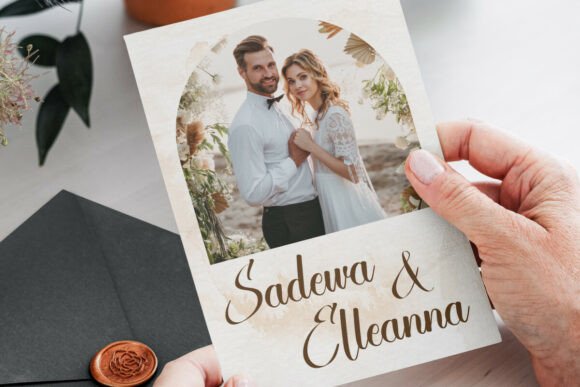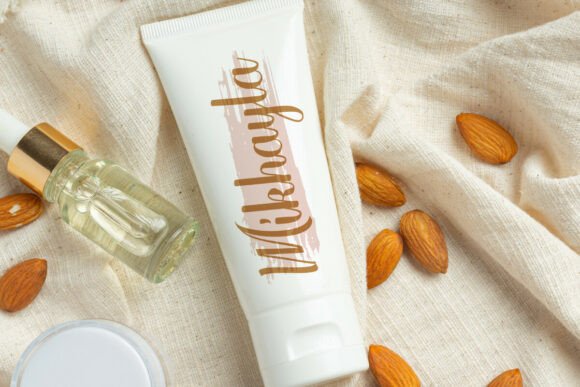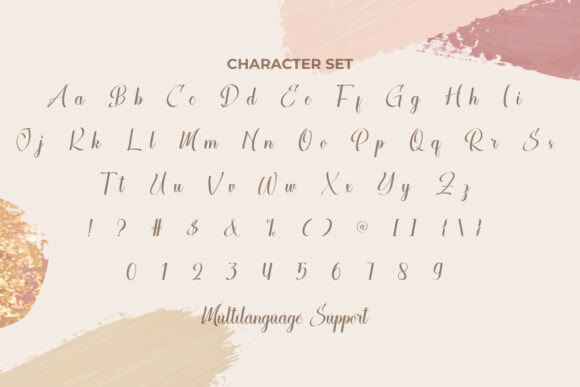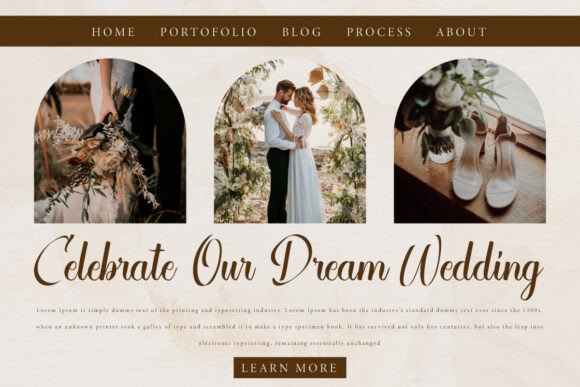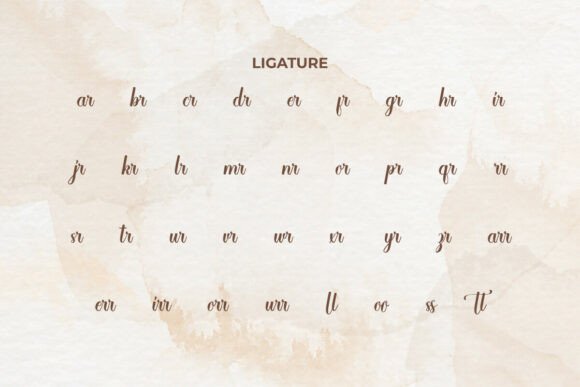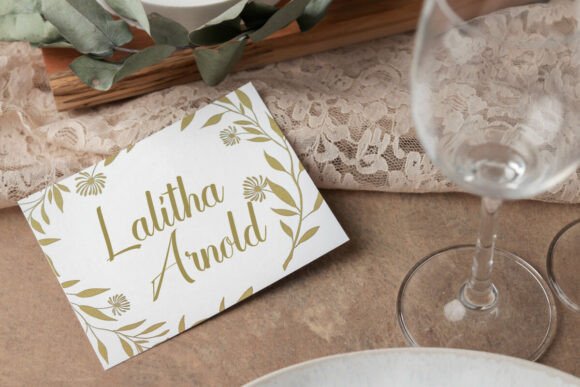
Introduction to Scattergun Font
As you sit at your desk, surrounded by scattered papers and half-finished coffee cups, you’re hit with a moment of creative clarity. The words start flowing, and your vision for a new project begins to take shape. But what’s missing? The perfect font to bring your ideas to life. That’s where the Scattergun Font comes in – a game-changing design resource that will elevate your creative project to new heights.
With its elegant, rhythmic script and high-contrast strokes, the Scattergun Font is the perfect choice for designers seeking a sophisticated and artisanal touch. Whether you’re working on a luxury branding project, designing a high-end wedding invitation, or crafting a refined editorial signature, this typeface is a valuable addition to your design arsenal. And the best part? It’s available for free download, making it a priceless resource for designers of all levels.
As you explore the Scattergun Font, you’ll discover its natural connections between characters and soft, organic flow, which create an authentic handwritten aesthetic that’s both personal and professional. With a transparent background and high-quality design, this font is sure to impress – and help you take your design projects to the next level.
Key Features of Scattergun Font
- Unique, hand-drawn style with a transparent background, ideal for adding a personal touch to designs.
- Scalable and versatile, suitable for use in a range of sizes, from small text to large headings.
- Resolution-independent, ensuring crisp and clear display on various screens and devices.
- Designed with a bold, playful feel, making it an excellent choice for creative and artistic projects.
- Comes in a single weight, perfect for adding a consistent visual element to your design without over-complicating your project.
Honest Review: Scattergun Font
- ✨ High-quality design: The Scattergun Font is beautifully crafted with intricate details and a unique style that adds a touch of sophistication to any design.
- ✨ Transparent background: This feature allows for seamless integration with other design elements, making it perfect for complex design projects.
- ✨ Versatile: The font comes in a variety of weights and styles, making it suitable for a wide range of creative projects.
- ⚠️ Limited font styles: While the font has a good selection of weights and styles, it may not be sufficient for designers who require a more extensive range of options.
Overall, I’m impressed with the Scattergun Font and would recommend it as a valuable design resource for any creative project. Its high-quality design and transparent background make it a great choice for designers looking to add a unique touch to their work.
How to Use Scattergun Font
Using Scattergun Font in Adobe Photoshop/Illustrator
In Adobe Photoshop and Illustrator, you can use the Scattergun Font as a regular font, but you can also take advantage of its high-quality design to create custom brushes and textures. To do this, go to the Brush Presets or Texture menu and select the Scattergun Font as your source.
Applying Scattergun Font in PowerPoint/Word
In PowerPoint and Word, you can use the Scattergun Font to add custom text elements to your slides and documents. To do this, go to the Font menu and select the Scattergun Font from the list of available fonts. You can also use the font to create custom headers and footers.
Tips for Getting the Most Out of Scattergun Font
To get the most out of the Scattergun Font, try using it in combination with other design resources, such as high-quality images and transparent backgrounds. You can also experiment with different font sizes and colors to create unique and eye-catching designs.
Common Use Cases for Scattergun Font
The Scattergun Font is a great resource for creative projects, such as posters, flyers, and social media graphics. It’s also a great choice for designing custom logos and branding materials.
Does the Scattergun Font have a transparent background?
Yes, the Scattergun Font has a transparent background, making it easy to use on any background image or color. This feature allows you to create visually appealing designs with the font seamlessly integrated into your project. Simply use the font’s transparent background in your design application to achieve the desired effect.